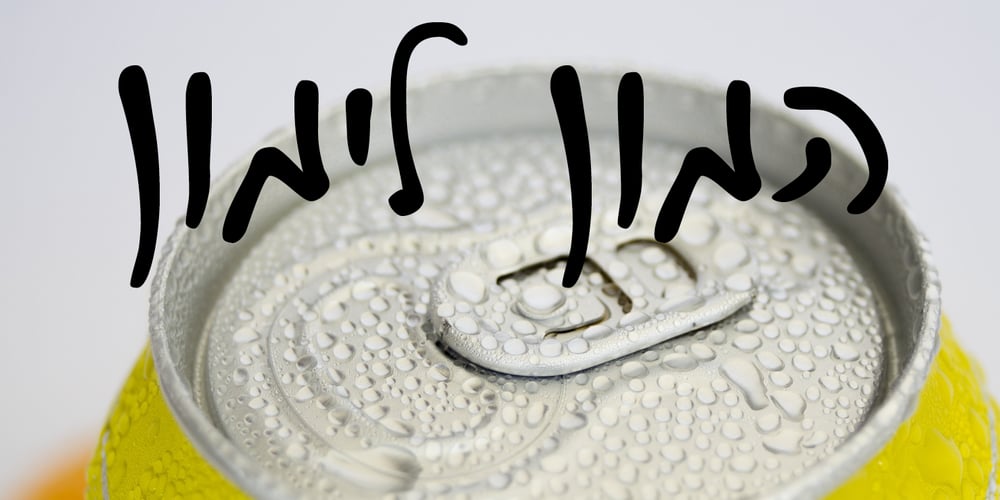
Hata MF Font Family was designed by Tali Vinski and published by Masterfont. Hata MF contains 1 styles and family package options. As personal as a handwriting can be, the ink drops add much of genuine touch to this childish script.